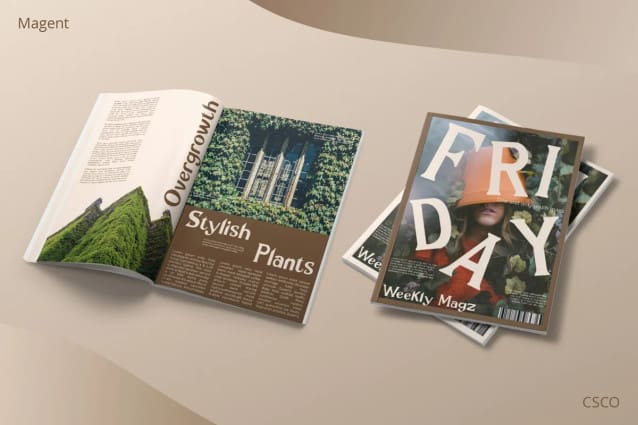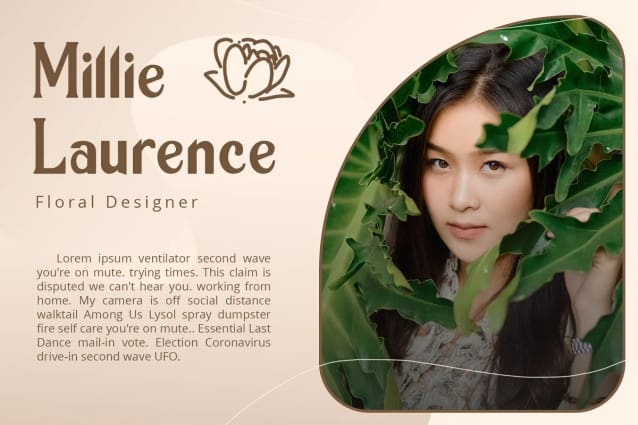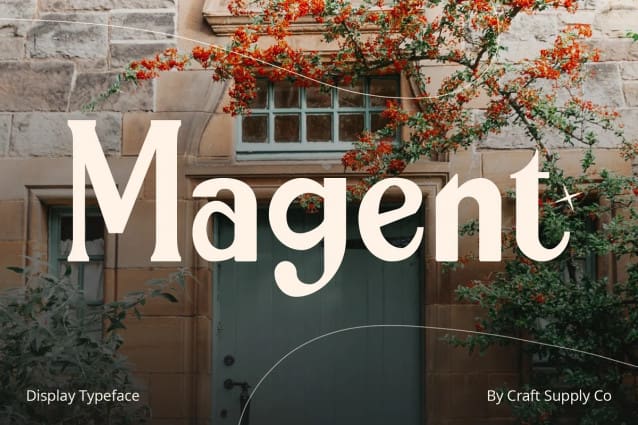
Magent Font
Magent Font –  sets itself apart as a striking Display Typeface that seamlessly merges the timeless elegance of serifs with the contemporary allure of sans serifs. This extraordinary fusion not only shatters monotony but also injects a vibrant energy into your designs.
Magent exudes an unmistakable aura of fun and playfulness. It’s the font to choose when you want to infuse your projects with a touch of whimsy and character. The result is content that not only stands out but also leaves a lasting and memorable impression.
An outstanding attribute of Magent is its sheer versatility. This font effortlessly adapts to a multitude of design contexts, spanning from posters to branding and beyond. Its adaptability makes it a true chameleon in the world of creativity.
Magent’s dynamic blend of serif and sans serif elements guarantees that your content remains not only memorable but also engaging. It captivates your audience and leaves them with a vivid and enduring impression, ensuring they keep coming back for more.
In summary, Magent Font – Display Typeface is a font that defies conventions. It’s a design masterpiece that harmoniously combines aesthetics with a playful spirit. Whether it’s branding, posters, or an array of creative projects, Magent Font is a one-of-a-kind font that captivates your audience and infuses your content with vibrancy and charm.